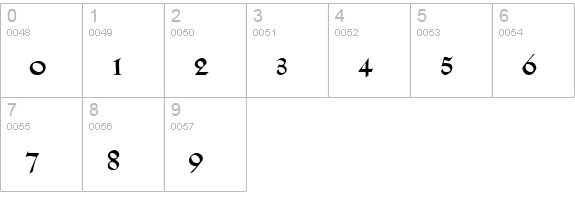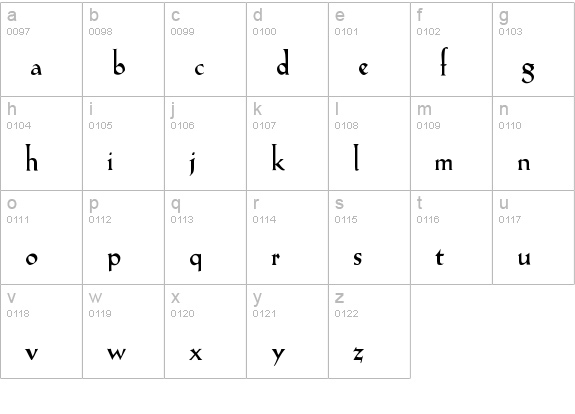
Auvergne Font Details
Auvergne font is a versatile and elegant typeface that exudes a classic yet modern aesthetic. Its timeless design and sophisticated curves make it perfect for a wide range of design projects, from branding to editorial layouts. The font features a harmonious balance between traditional and contemporary elements, resulting in a unique and captivating look. What sets Auvergne font apart is not only its aesthetic appeal but also its accessibility - it is available for free download at FontsMarket.com. This means that designers and creatives can easily access and use this beautiful font in their projects without any cost. With its clean lines, stylish swashes, and refined details, Auvergne font is sure to elevate any design and make a lasting impression.